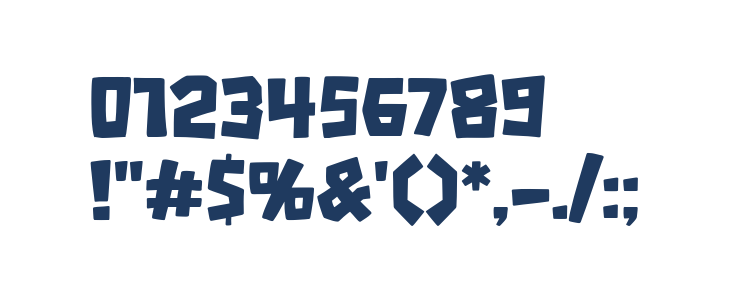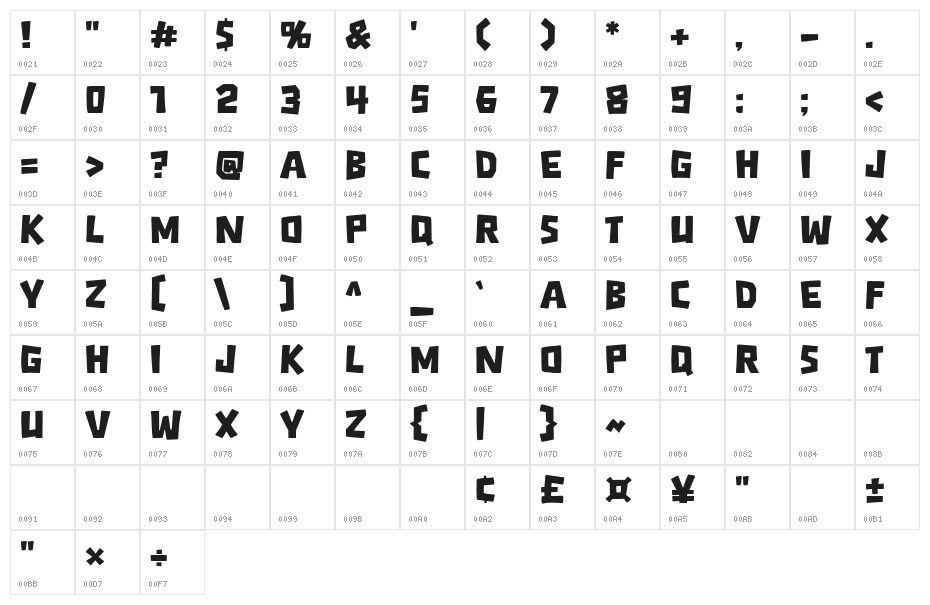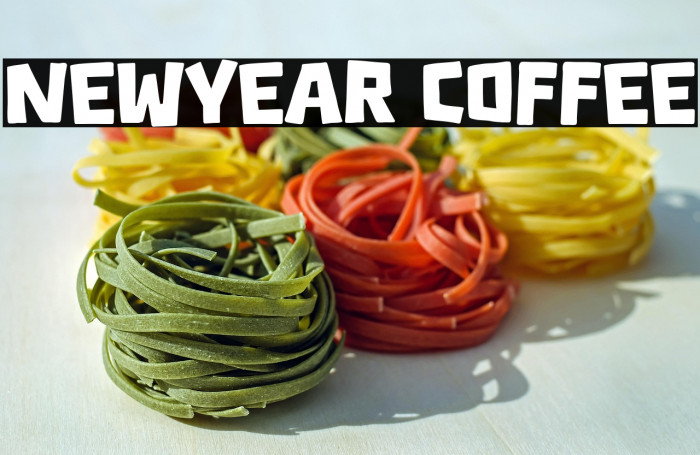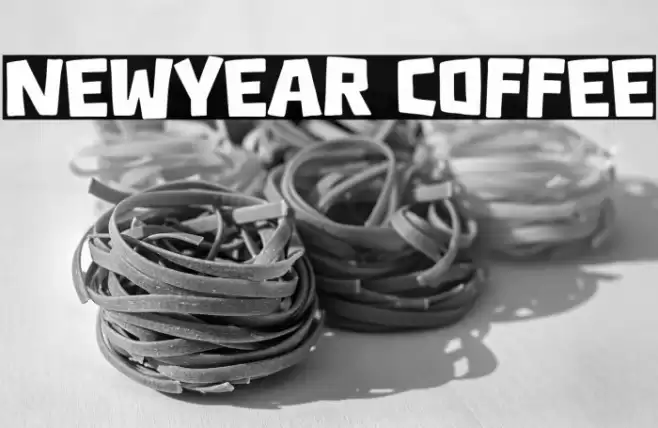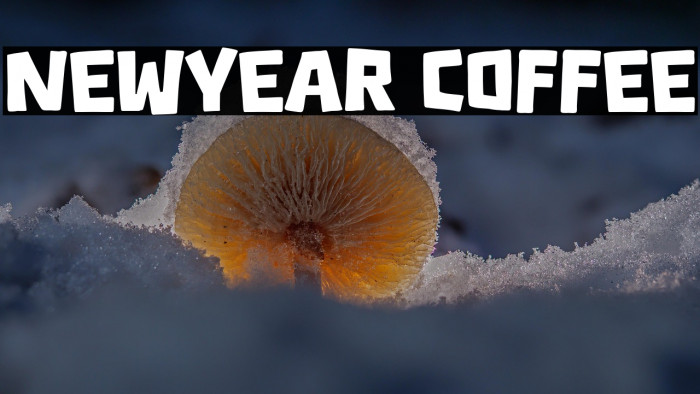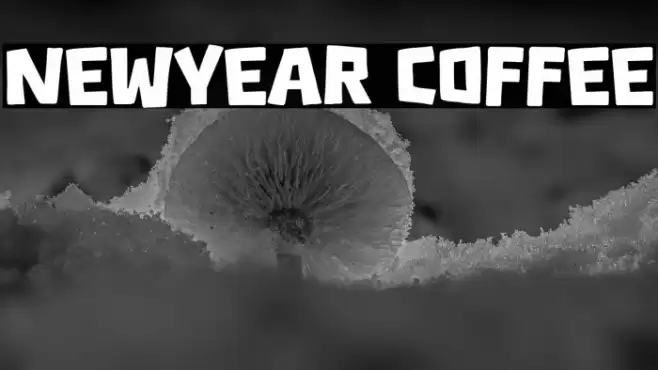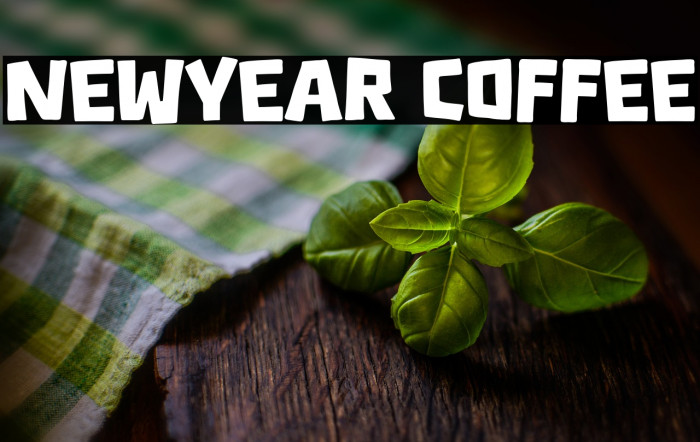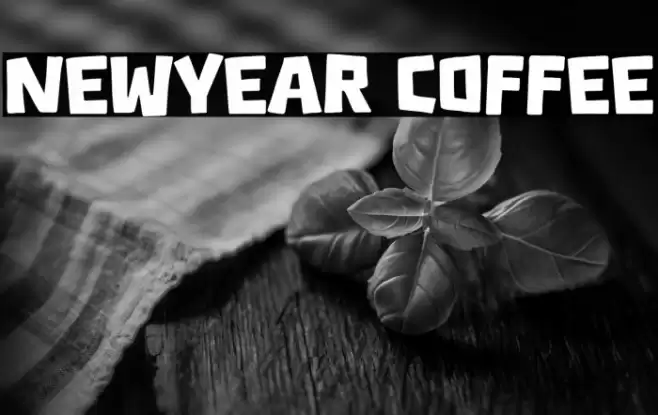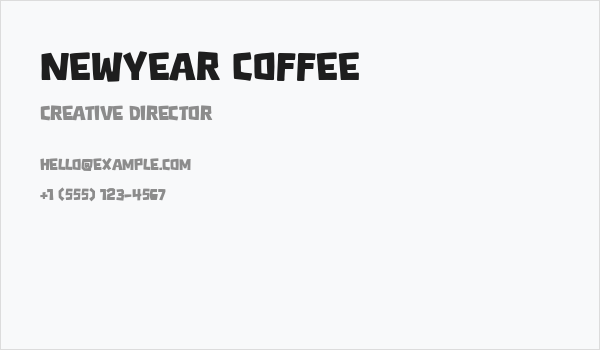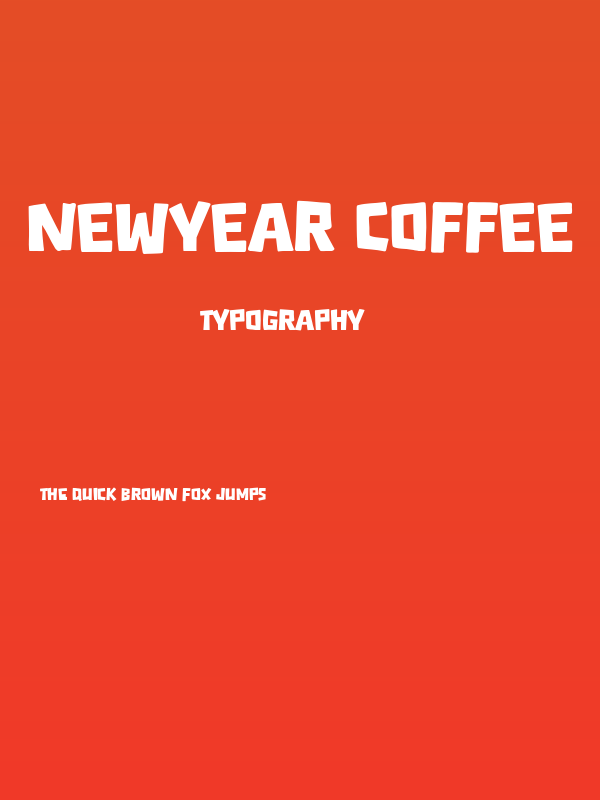
Newyear Coffee Font
Newyear Coffee Description
This font features a bold and playful style with a slightly irregular and hand-drawn appearance. The characters are thick and robust, giving them a strong presence on the page. Each letter has a unique, quirky shape that adds a sense of fun and creativity. The uppercase and lowercase letters maintain a consistent weight, while the numbers and special characters follow the same bold and dynamic design. The overall look is informal and energetic, making it suitable for projects that require a lively and engaging typeface.
| Overall Style | Playful, Creative |
| Proposed Projects | Ideal for children's books, playful branding, event posters, and creative social media graphics. |